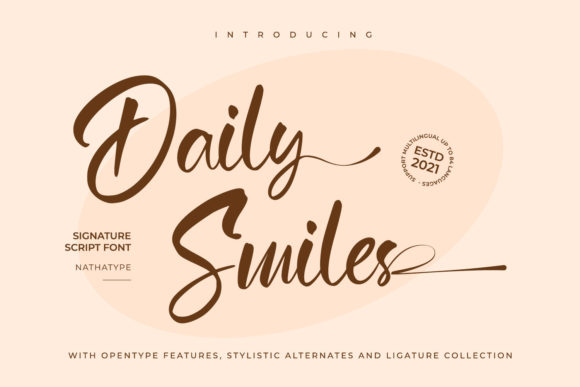
Prepare yourself for something spectacular - the Daily Smiles font, a masterpiece waiting to elevate your designs to new heights! This captivating script font boasts a timeless, vintage charm that oozes sophistication and elegance.
Picture this: your fashion brand adorned with the graceful strokes of Daily Smiles, captivating customers with its undeniable allure. The smooth, flowing curves of each letter dance effortlessly across your designs, creating an unforgettable visual experience.
But wait, there's more! Daily Smiles isn't just a pretty face - it's a powerhouse of versatility, perfect for editorial designs that demand a touch of panache. Its meticulously crafted characters lend an air of refinement to any project, from enchanting invitations to eye-catching social media posts.
And here's the cherry on top - Daily Smiles is PUA encoded, which means you can unlock a world of glyphs and swashes with effortless ease. Unleash your creativity and add a touch of playful flair to your designs, making them stand out from the crowd.